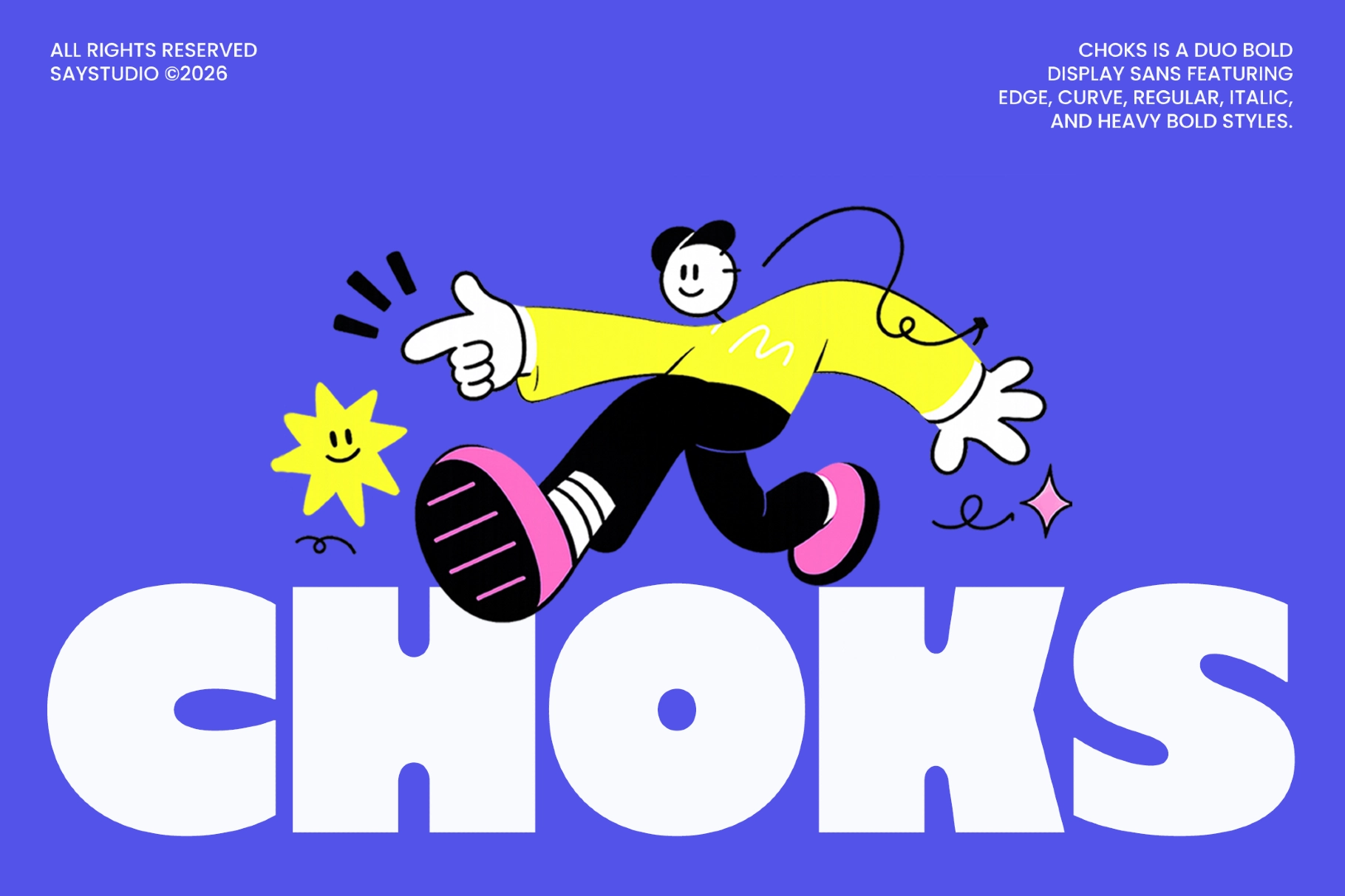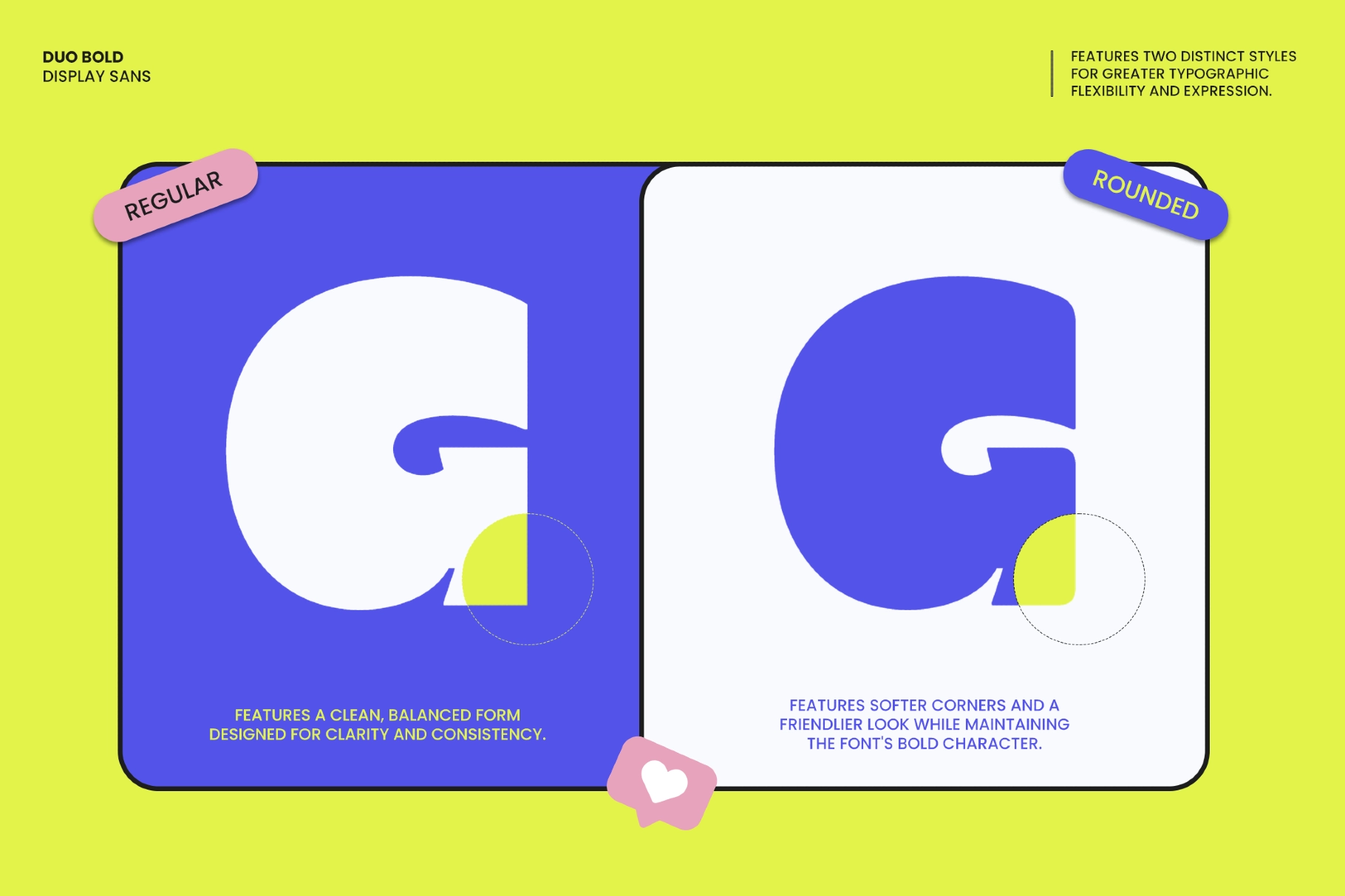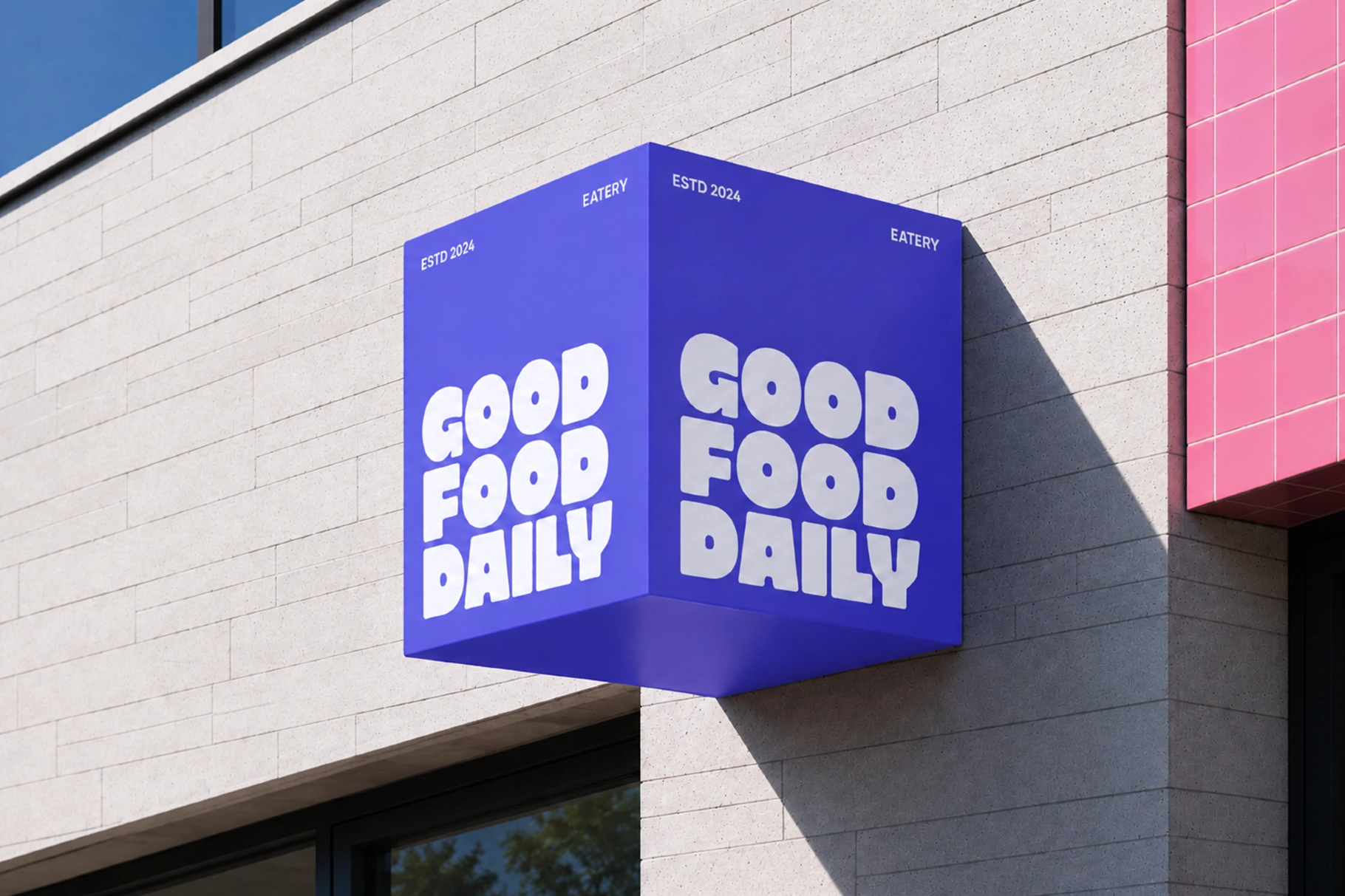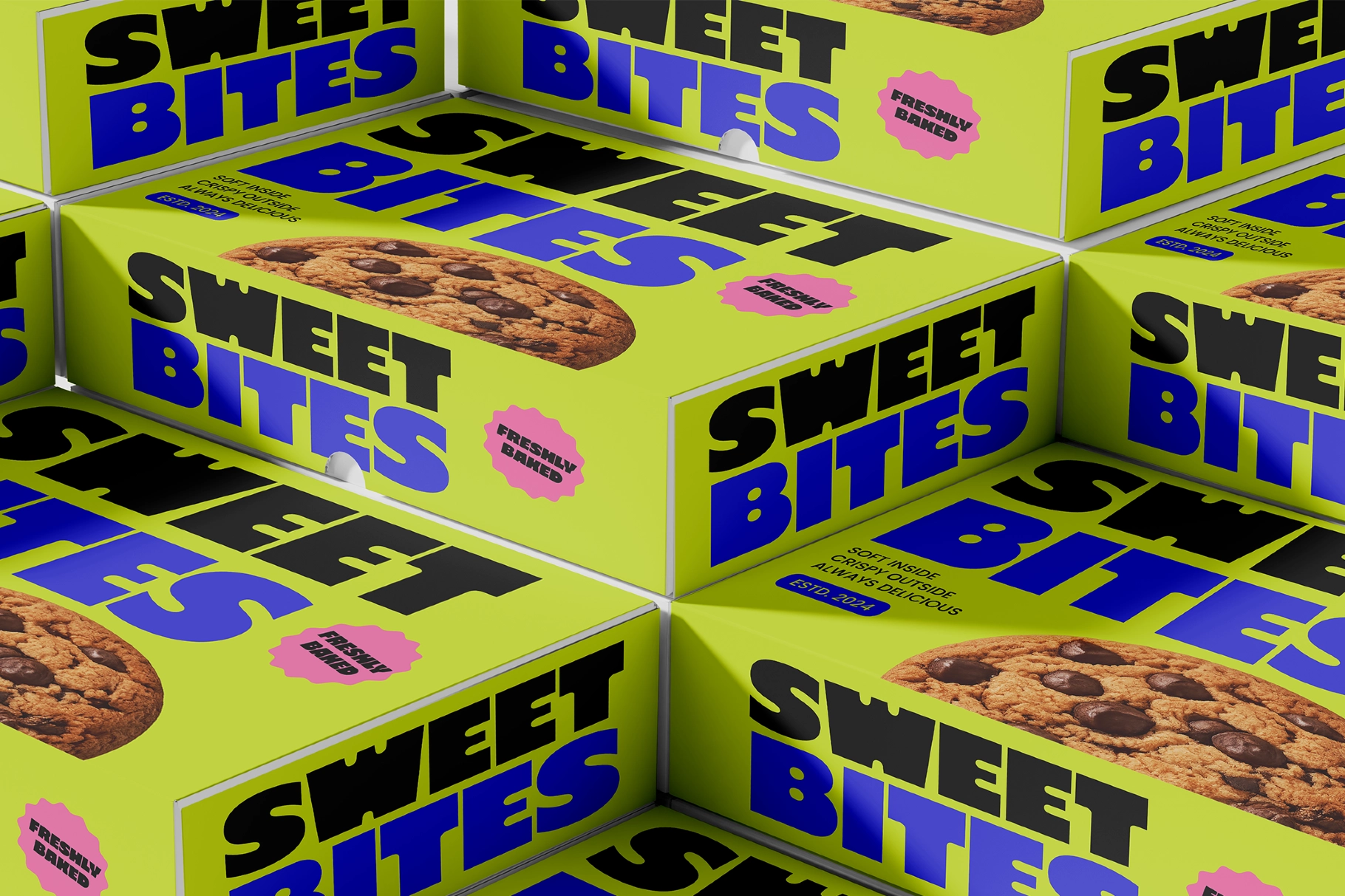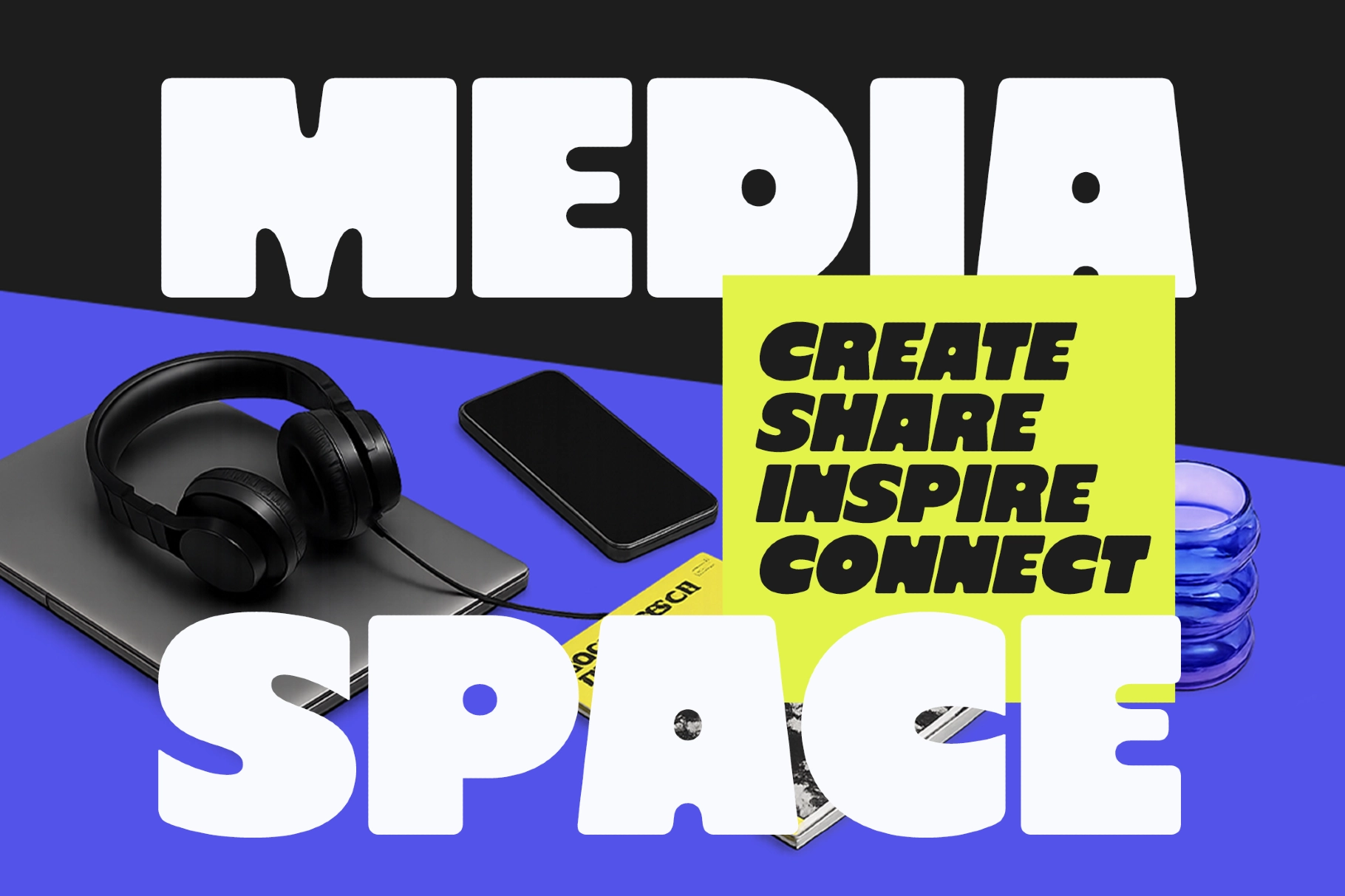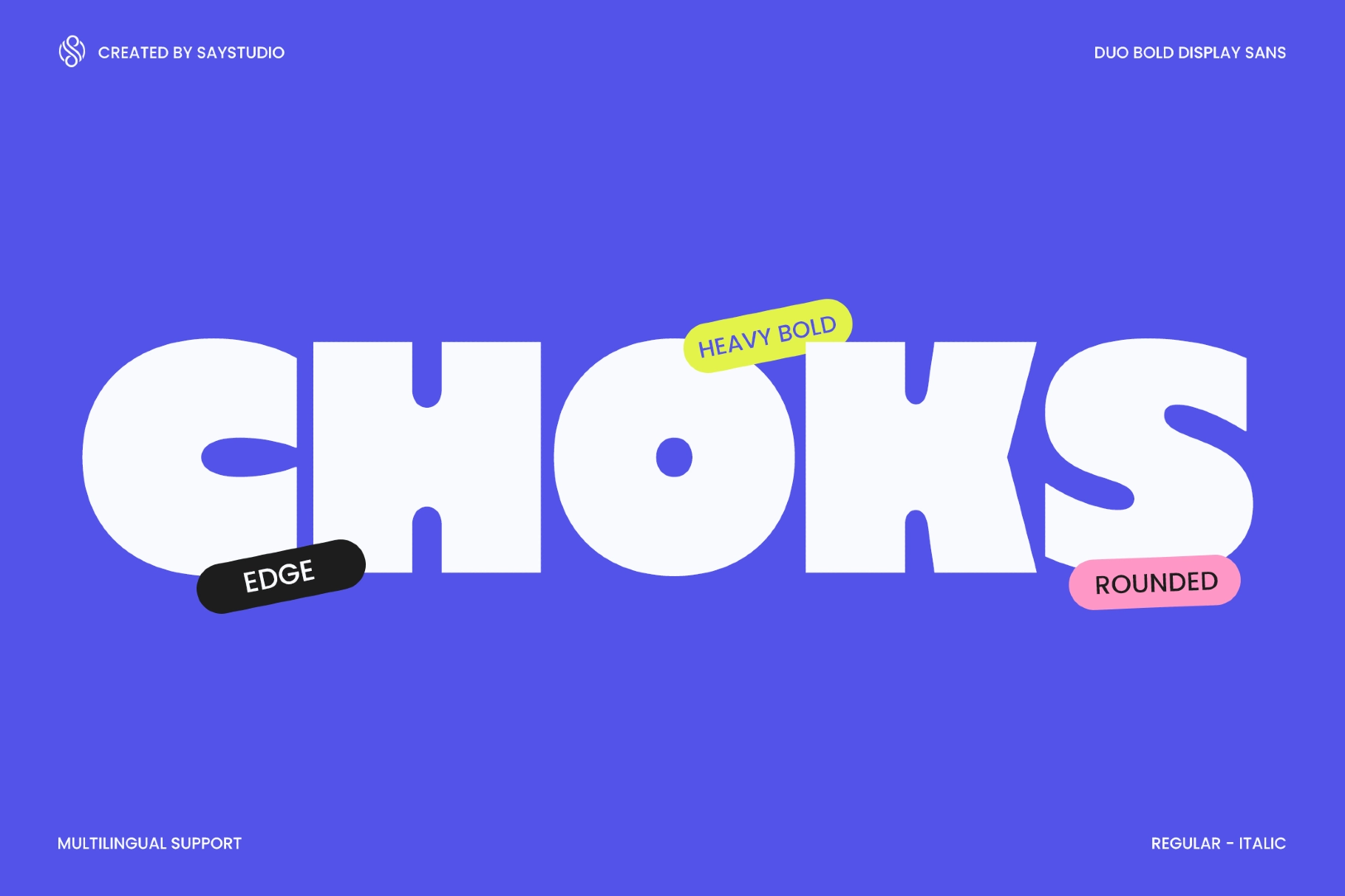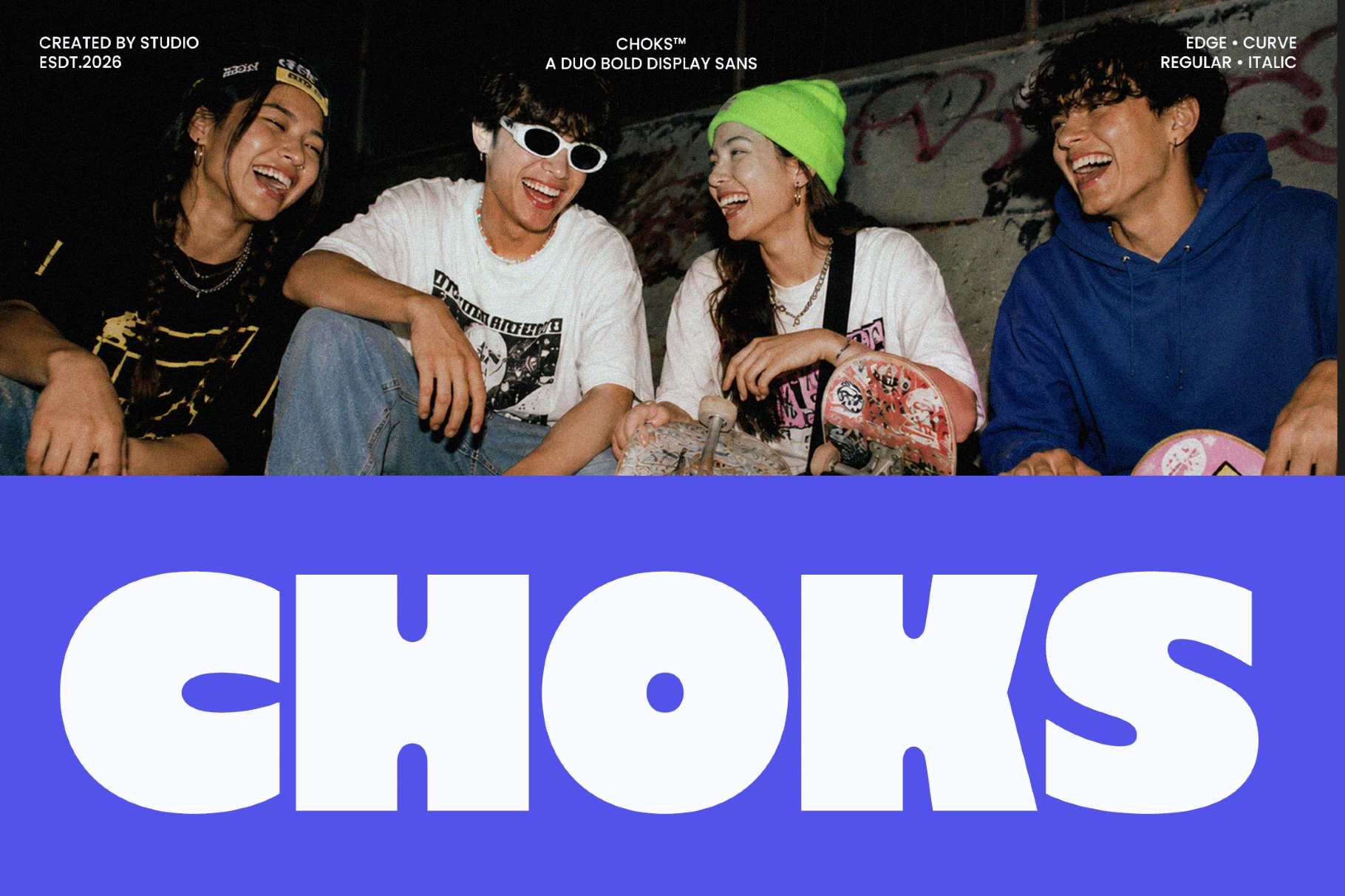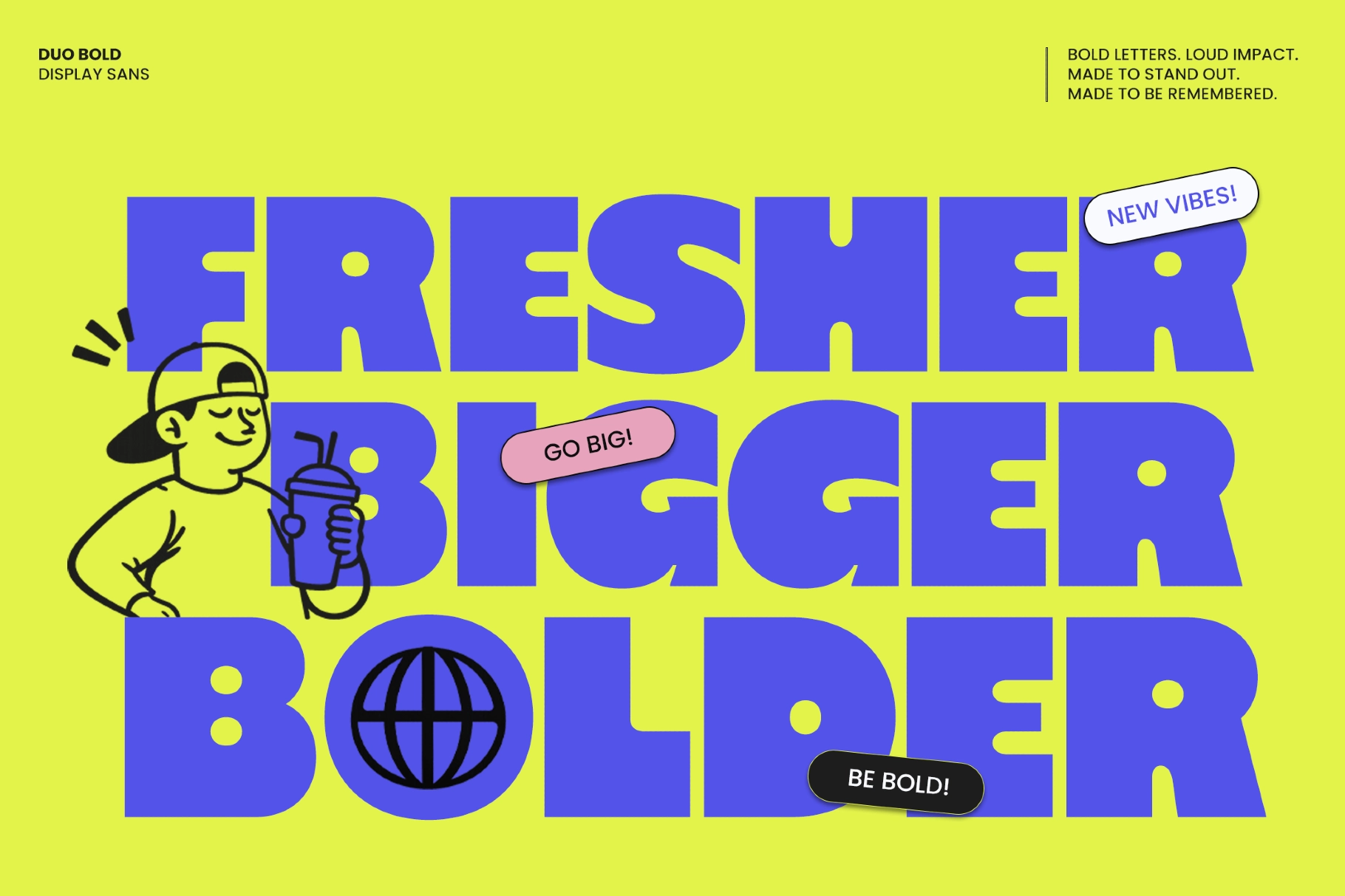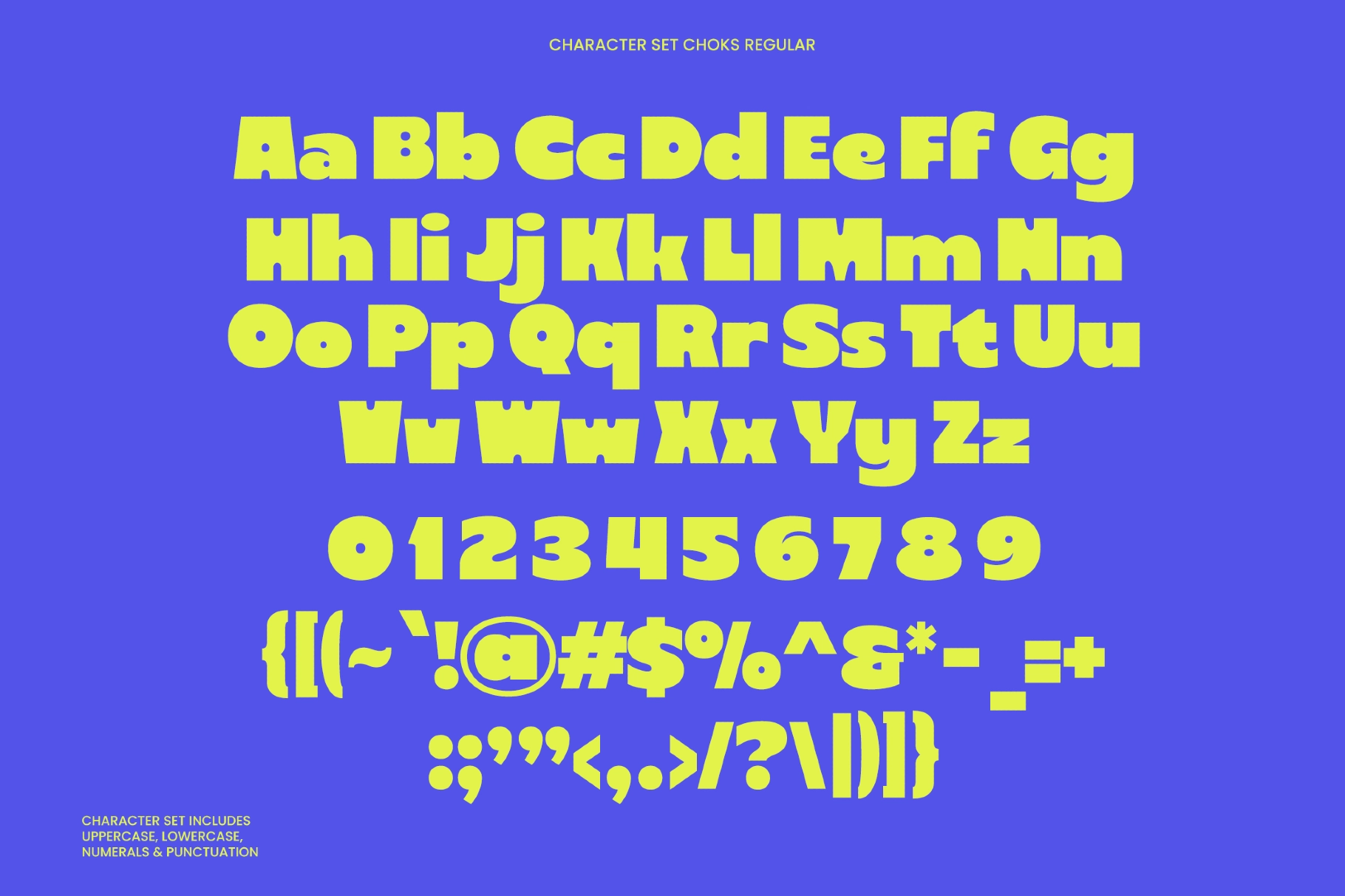
Choks - Heavy Bold Branding Font
A branding display sans serif with a strong graphic presence , built on chunky proportions and a dual system of sharp edge and rounded forms. The contrast between styles gives it flexibility for expressive typography while keeping a clear and structured look across layouts.
It works well for logos, posters, packaging, social media visuals, headlines, advertising, apparel graphics, editorial layouts, and digital campaigns. The bold forms keep text readable at large scale and give short phrases a clear visual impact in both print and screen use.
- 2 styles: Edge & Rounded
- Regular & Italic types